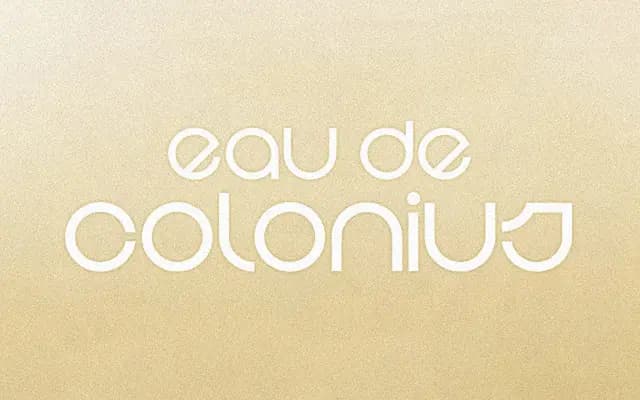
BD Colonius
Type Different · 2001
A circular geometric sans-serif from 2001, available in a single Regular weight with a refined, almost precious character.
Built around circular forms and geometric construction, BD Colonius sits in the tradition of round geometric sans-serifs but with a restrained elegance rather than the neutrality of more utilitarian designs. It covers a broad range of Latin-script languages including most Western and Northern European languages, with OpenType support for standard ligatures and tabular figures. At a single weight it is suited to display and branding contexts where purity of form matters more than typographic range.
The foundry describes it as circular and geometric, placing it firmly in the geometric sans-serif tradition with an emphasis on round, optically even letterforms.